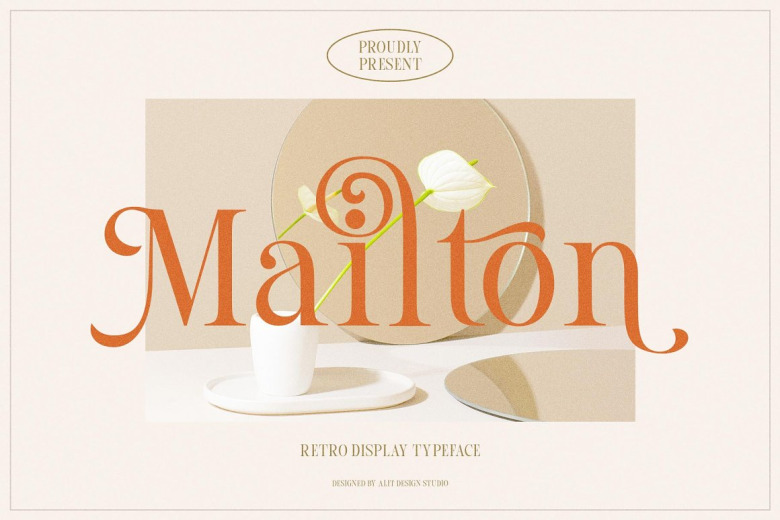
Mailton Font
The Mailton Serif Font is an effervescent typeface bearing a clean and stylish characteristic with hint of dynamic serifs. The curves and contours of the Mailton Serif Elegant typeface is just as smooth as the words that come from the typeface and it flows to make realistic curves.
It is very simple to use this type of fonts particularly the “Mailton typeface” in the designs especially if the design is elegant and smooth in appearance since it is depictively smooth in all its glyphs and this font supports Unicode (PUA) and consequently all changes.
Mailton Serif Font